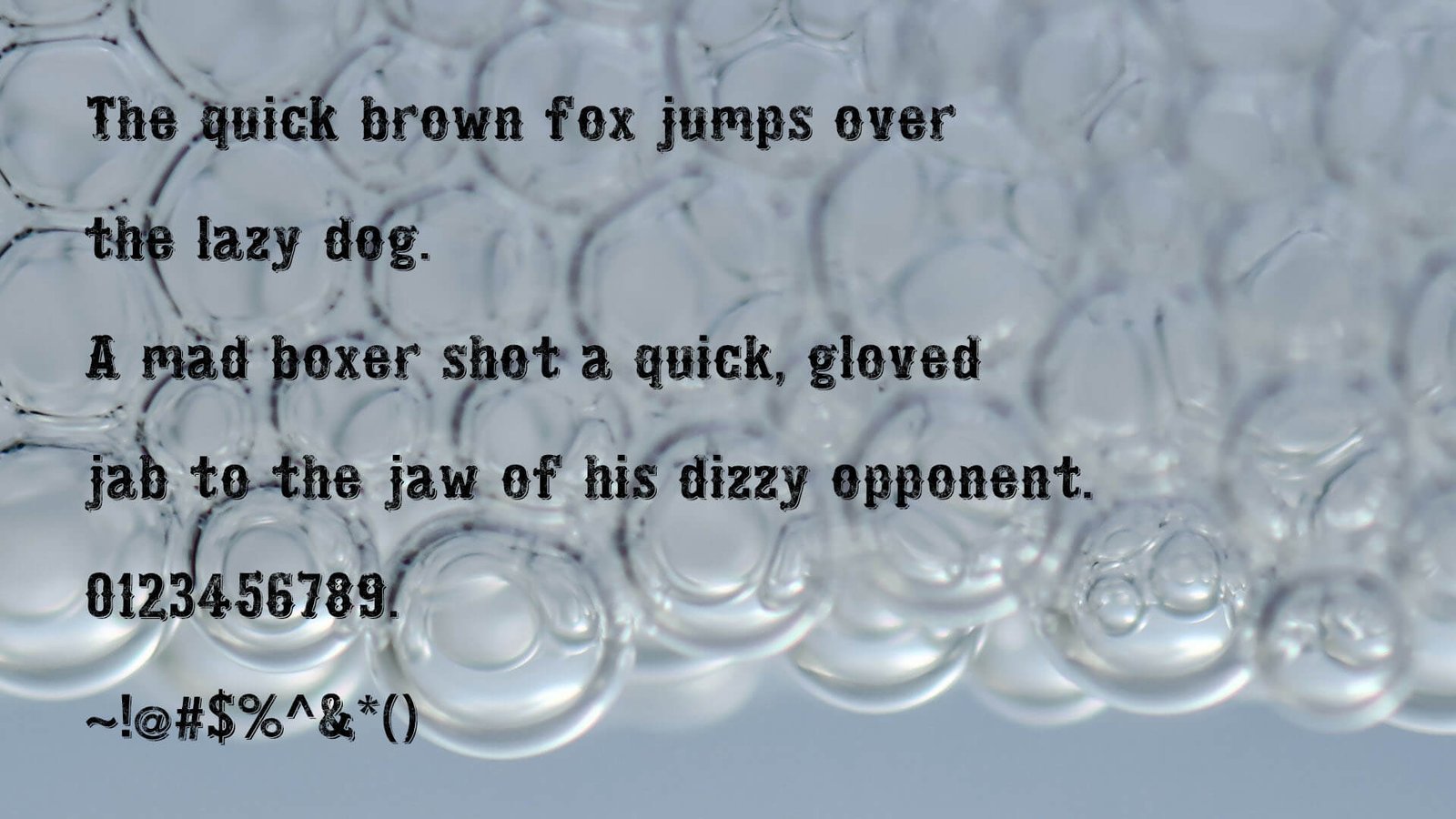
Lets we are introduce the amazing and stylish font that is known as Addison circus font. This typeface is a member of the display font family. The designer of this beautiful font is Kimmy Kirkwood. The publisher of this font is Kimmy Designs. This font is released in the year of 2011.
This font has a Contemporary western style in the form of surfaces. The typeface Addison west is based on the wide block serif, Circus, and Decorative face will add the genuine and amazing style for any artwork. The designing concept of bold faces created standard and standout Designs.
Addison Circus Font Family
| Name | Addison Circus |
| Designer | Kimmy Krickwood |